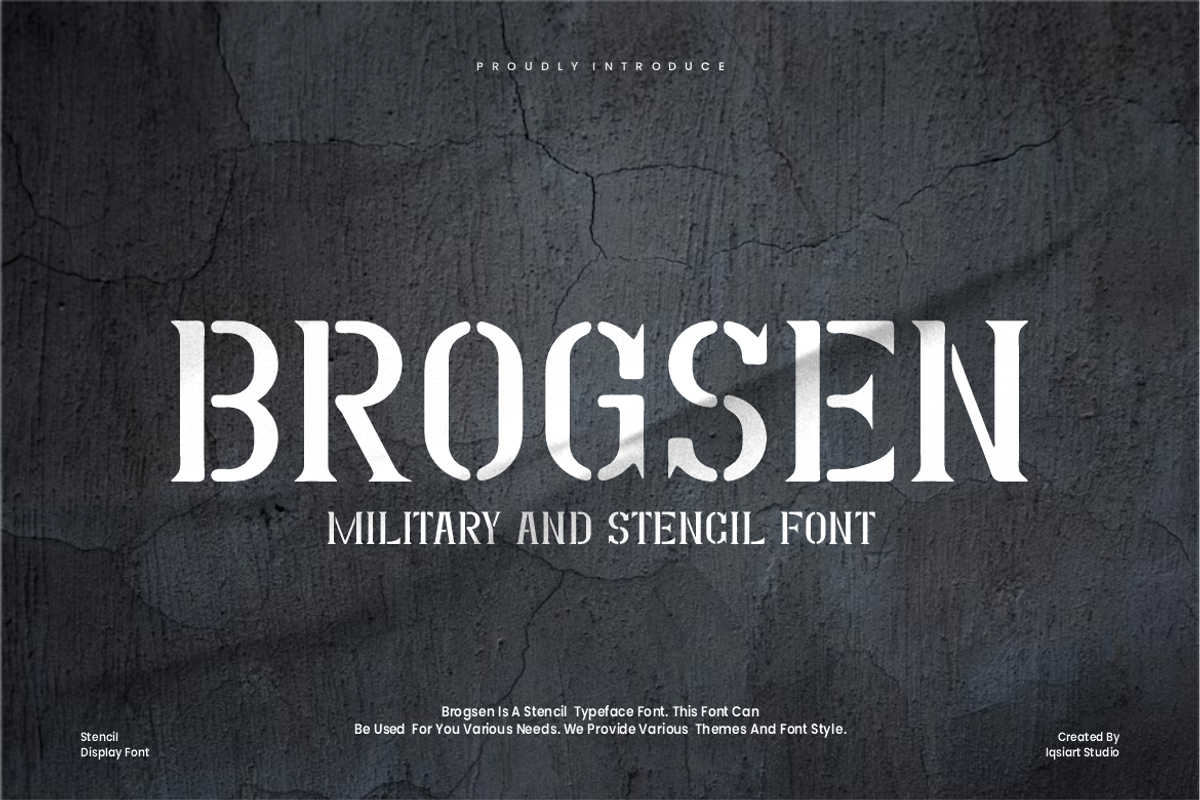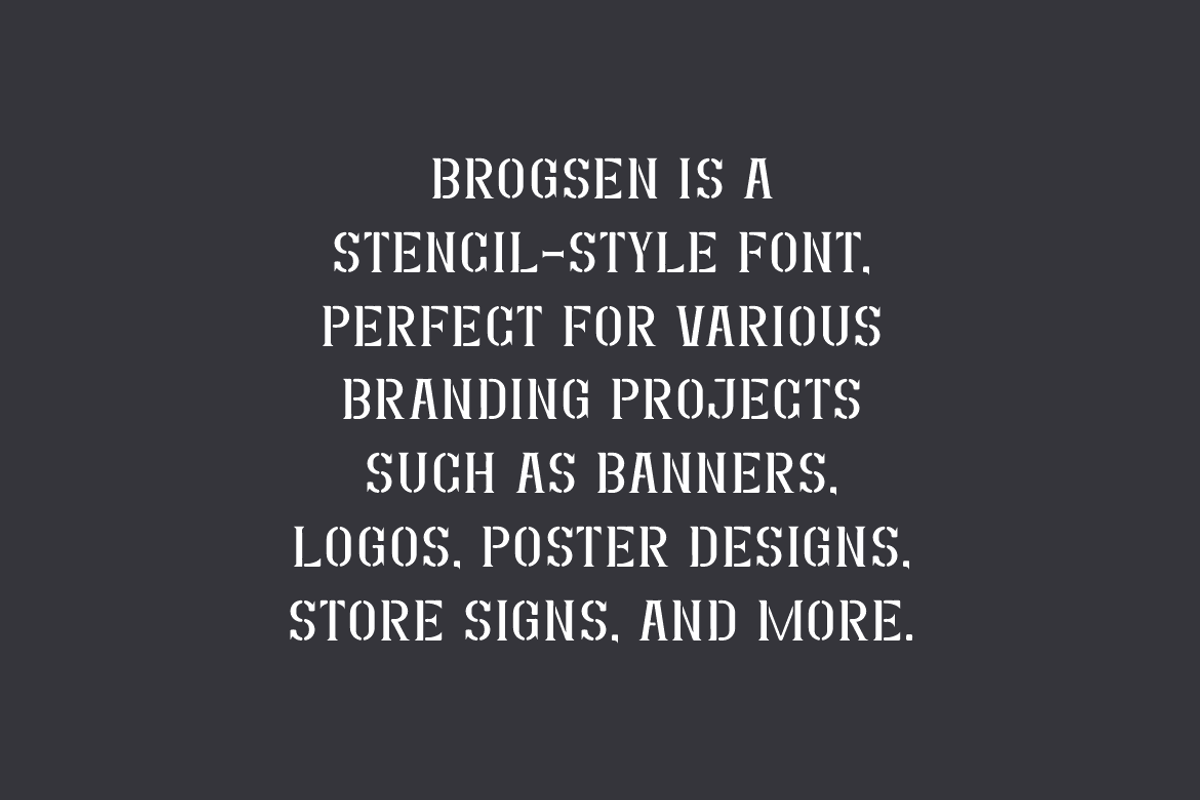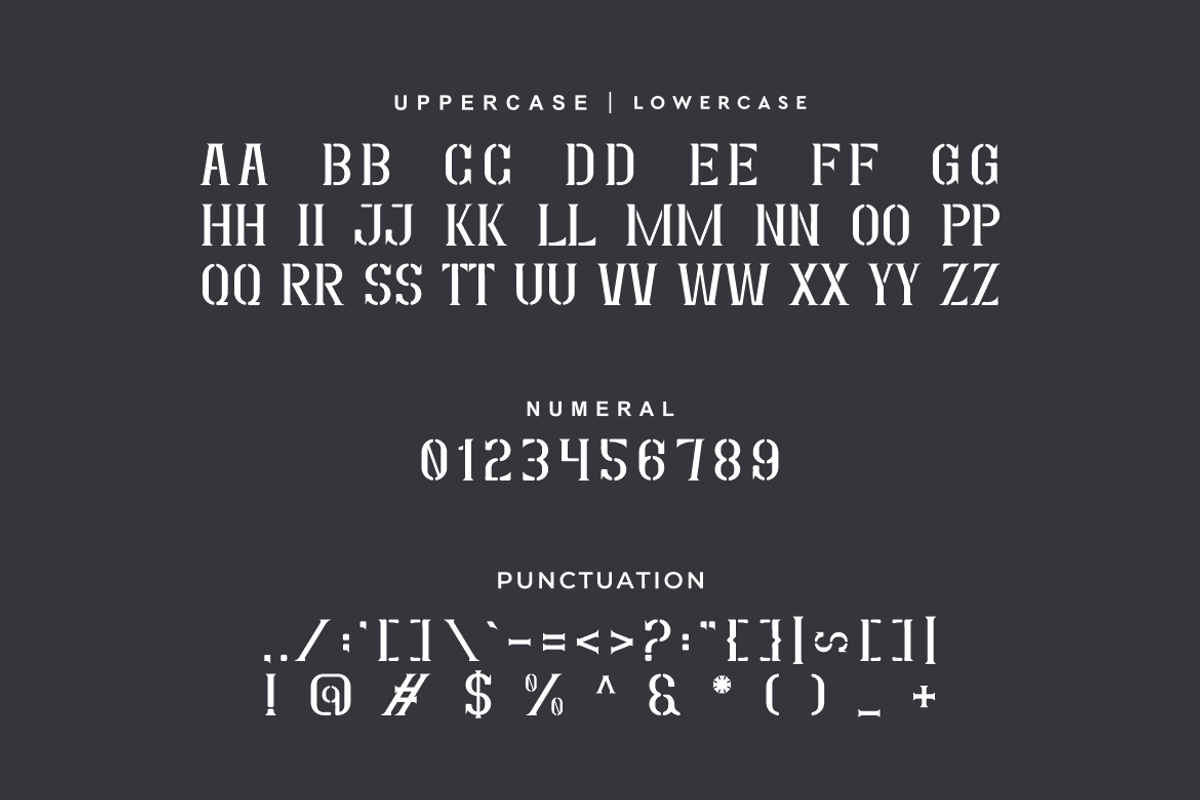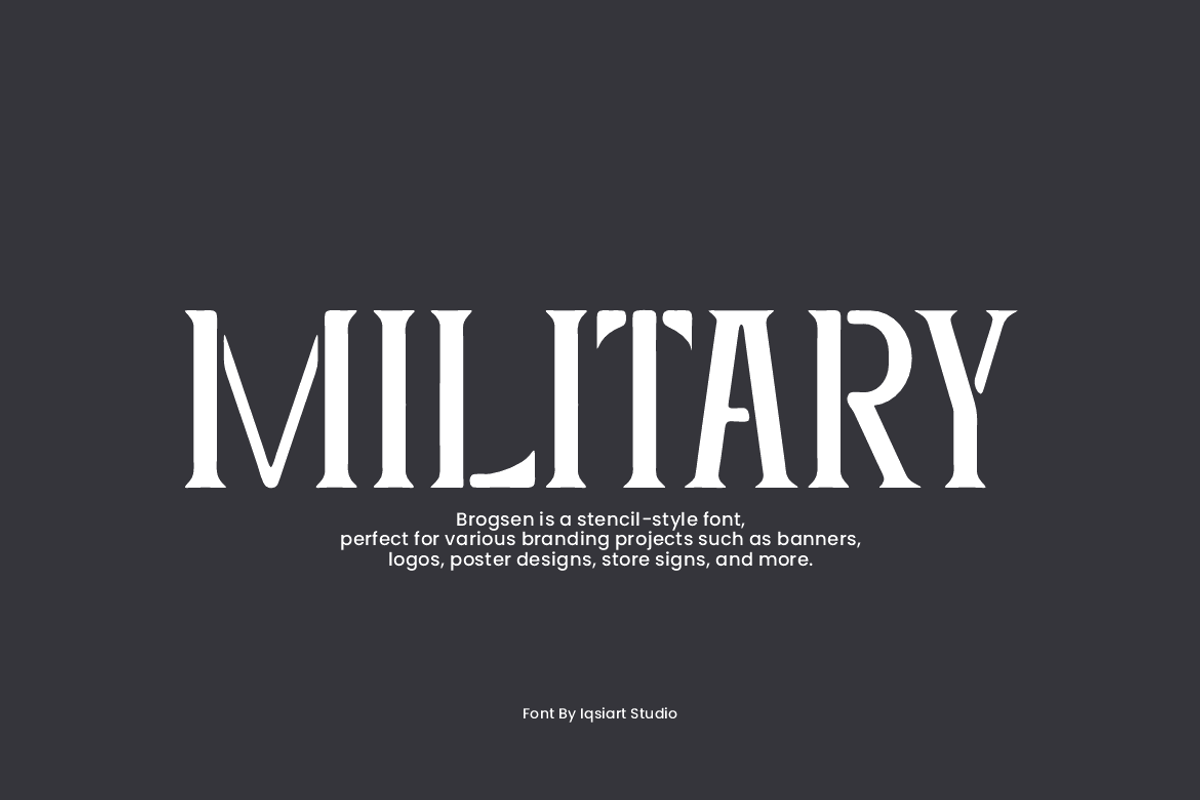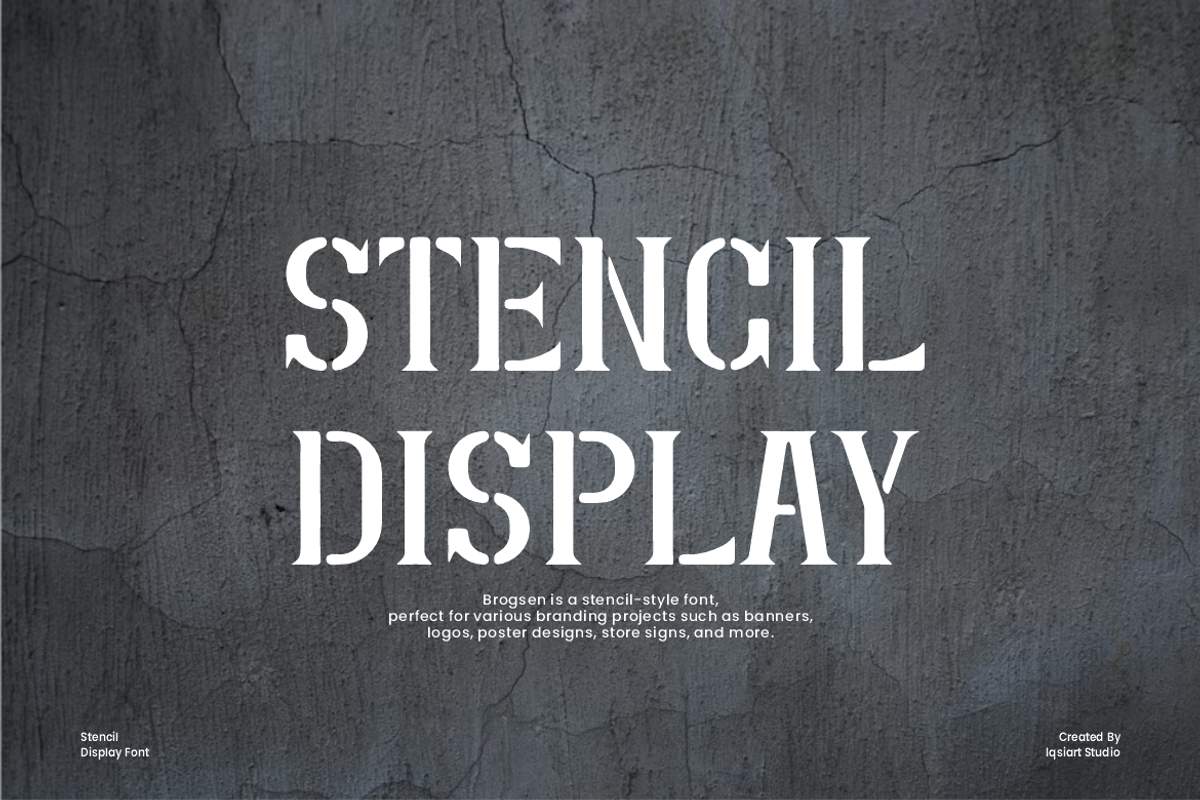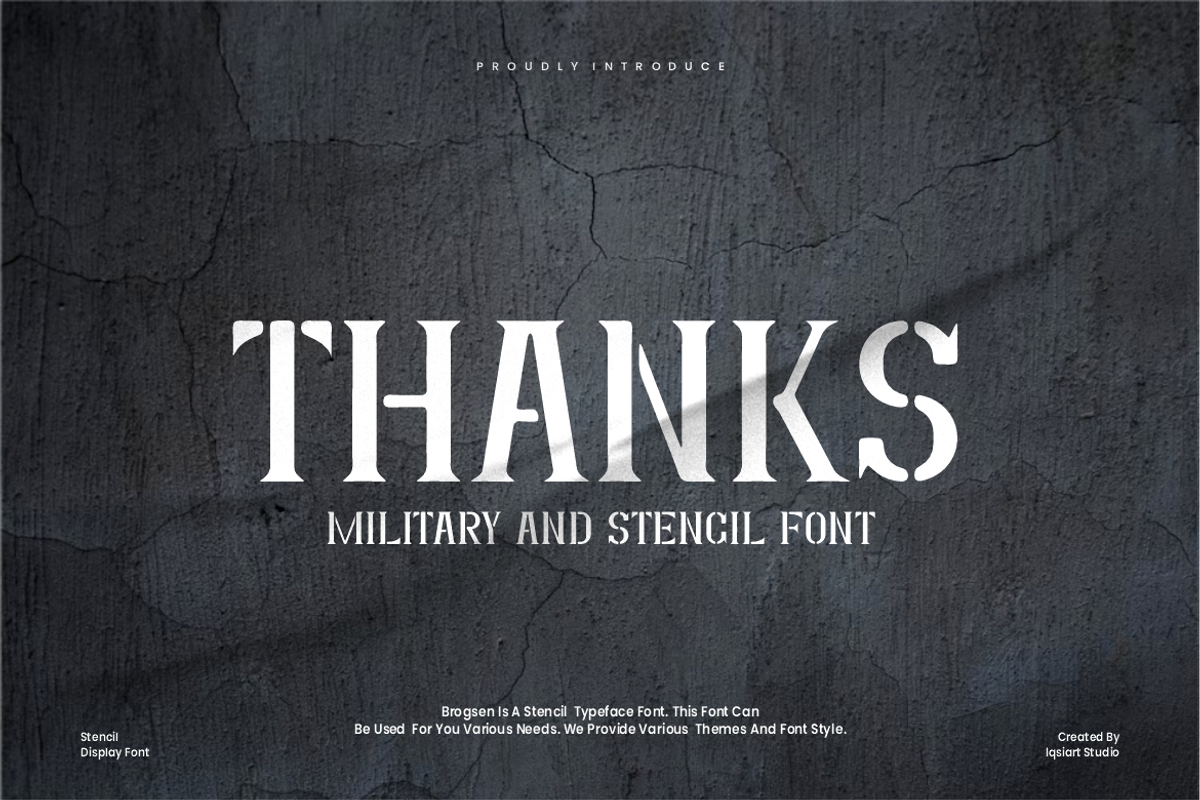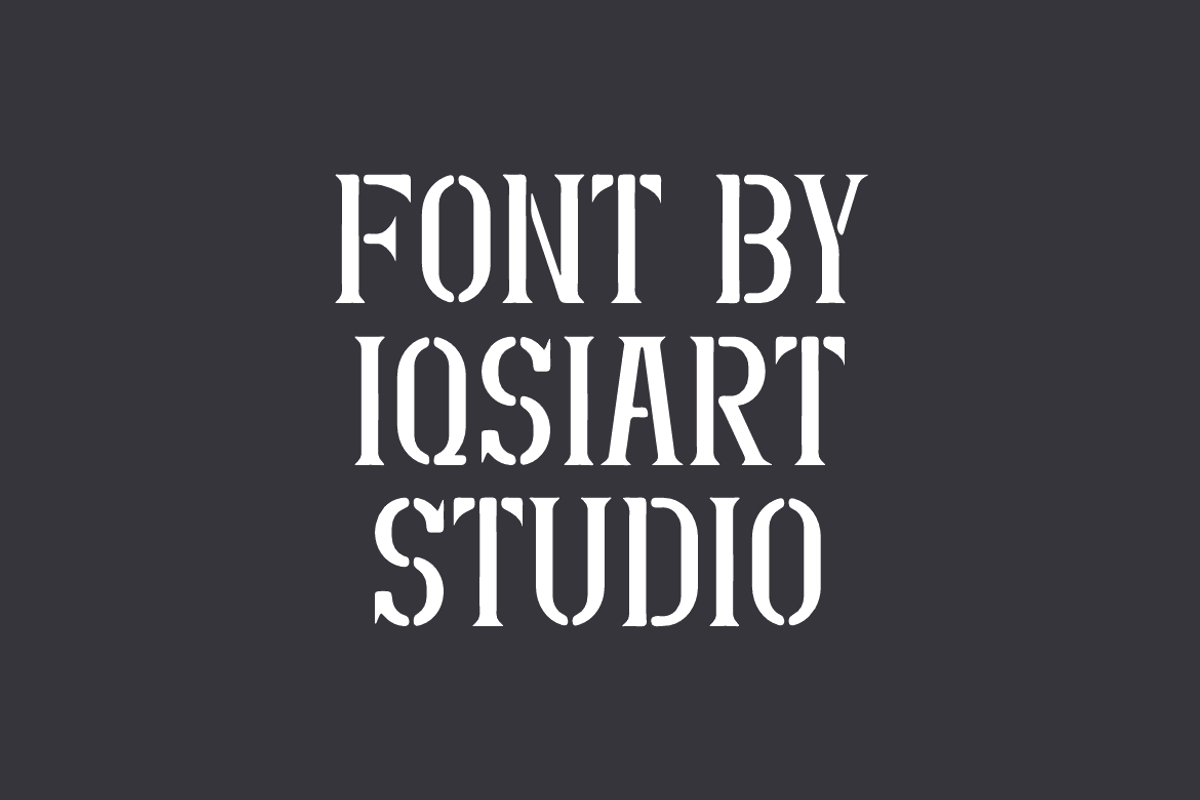
Brogsen - Military Stencil Font
Brogsen Font is a stencil and authentic display typeface that suits a variety of design needs. We offer a wide range of themes and font styles — visit our profile to explore more and find the perfect style for your project.